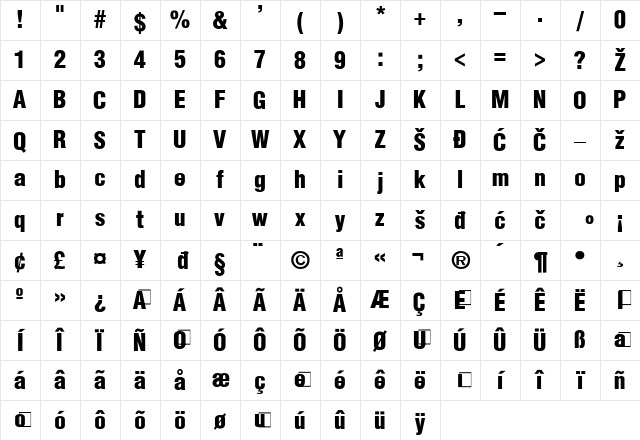
0Hel-CB Regular
Design Context for 0Hel-CB
0Hel-CB is a composed and adaptable typeface that performs quietly and consistently across a wide range of design contexts.